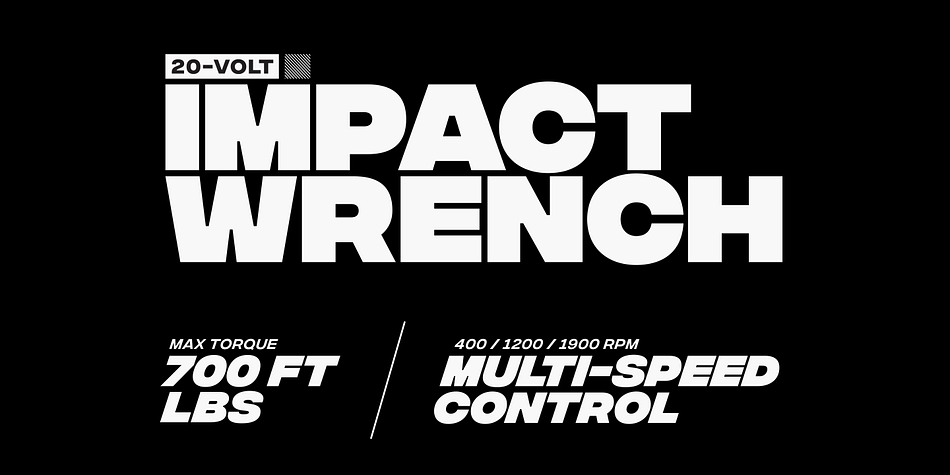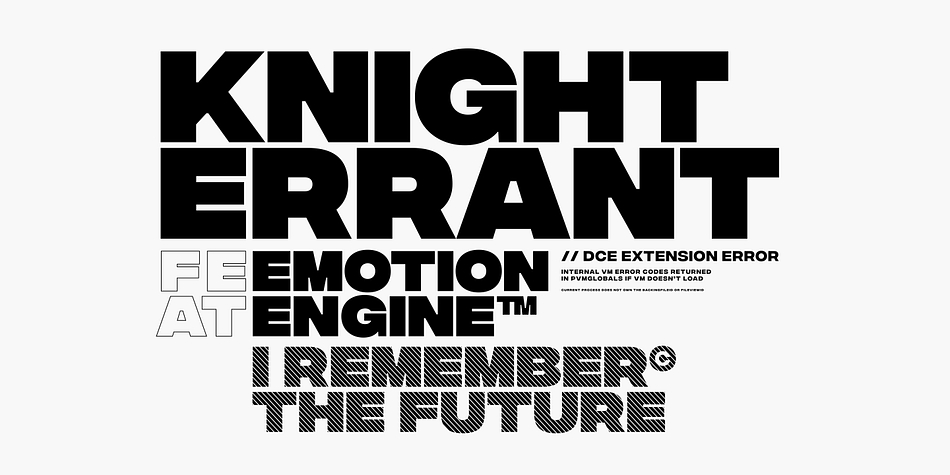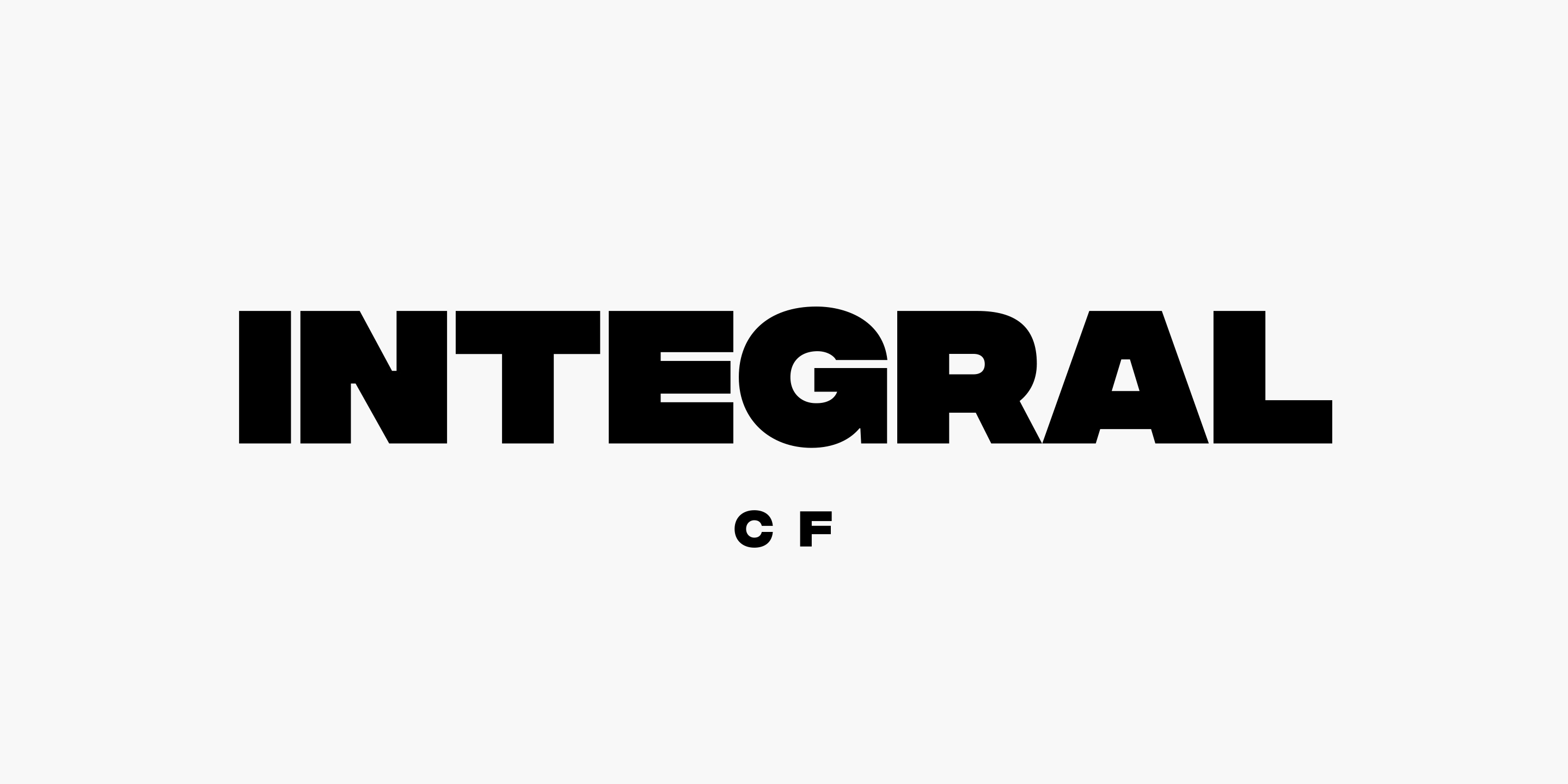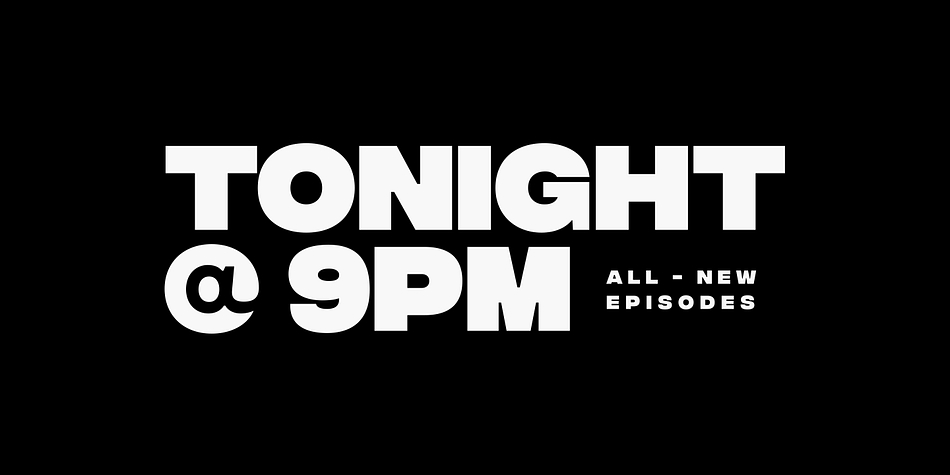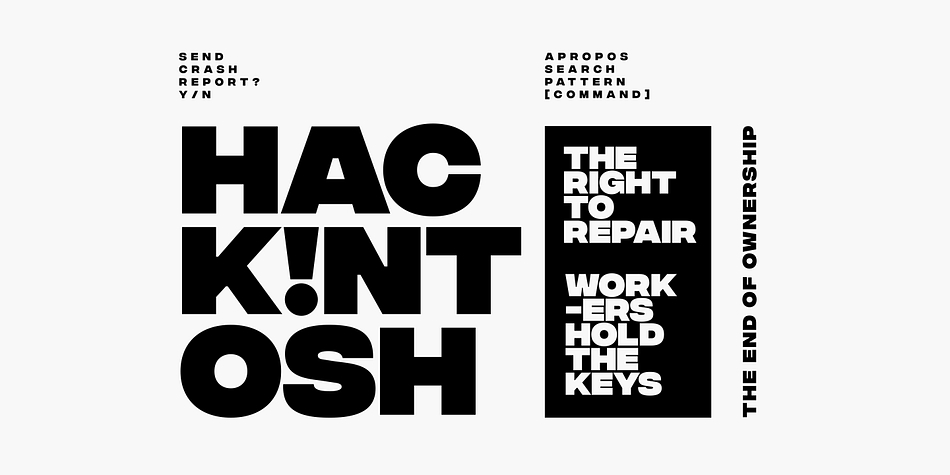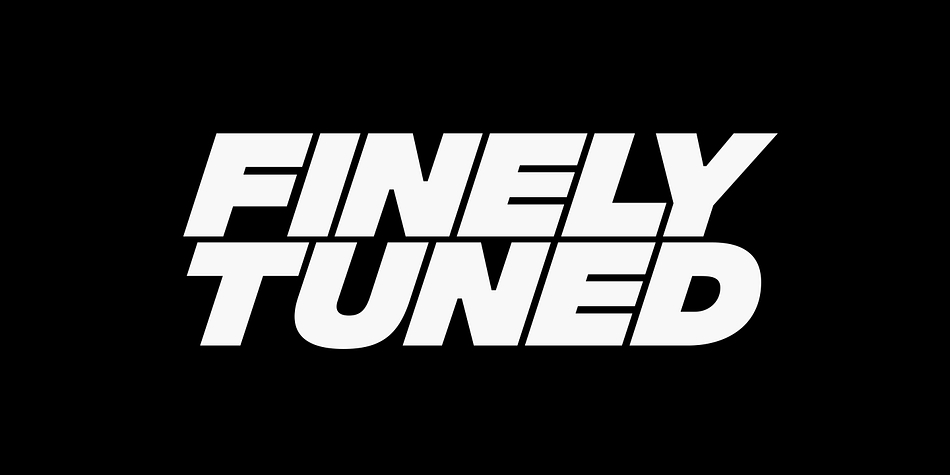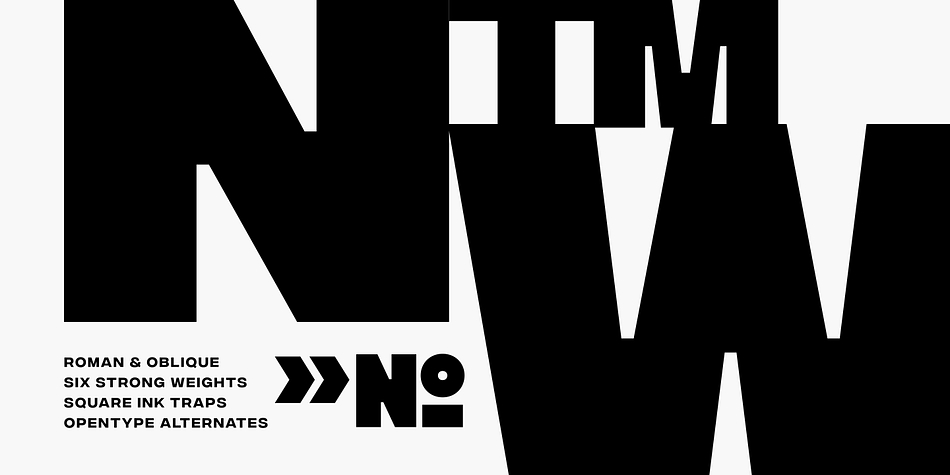
Integral CF is a display sans font family. This typeface has twelve styles and was published by Connary Fagen Type Design.
Integral CF is designed for maximum visual and emotional impact. Its six weights excel in posters, social media, headlines, titling, large-format print – and anywhere else you want to be noticed. Hidden among the straight lines and corporate confidence is a hint of roguish charm and character; Integral lends your words a strong voice while being lot of fun to use.